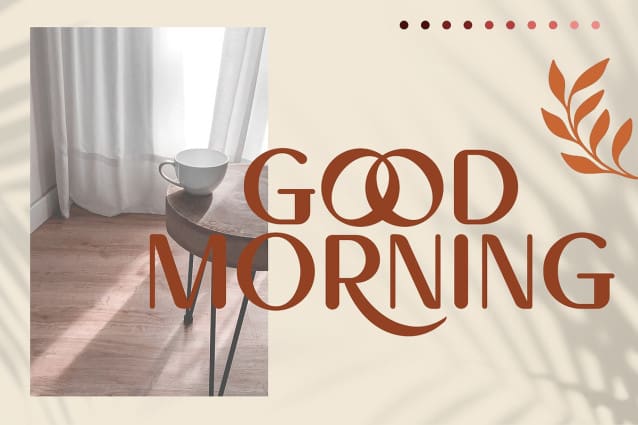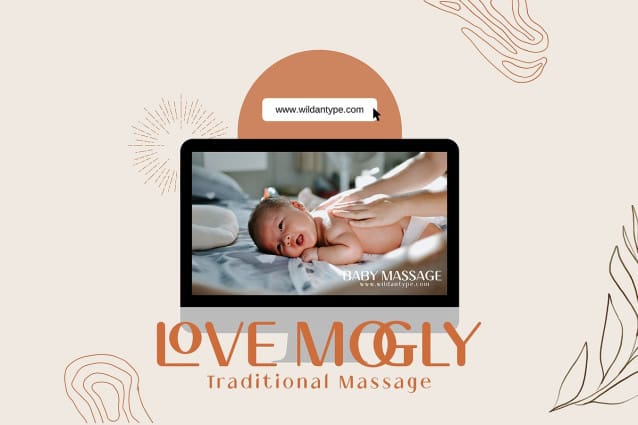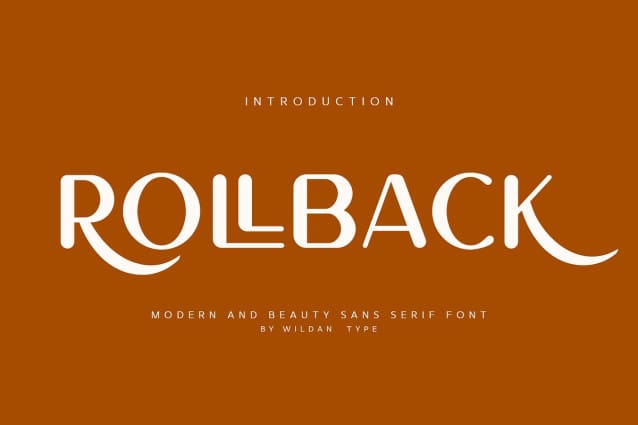
Rollback Font
Rollback Font– a clean and smooth typeface with a rounded touch at each end of the caracter. looks lighter, more relaxed and humanist. This font has many alternative options and ligatures, perfect for creating designs such as packaging, logos or titles.